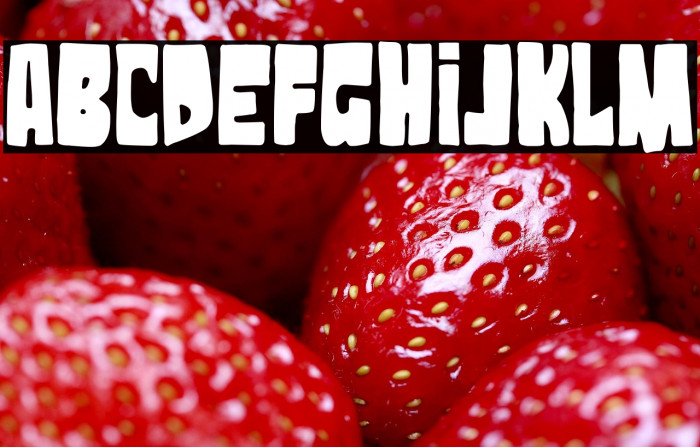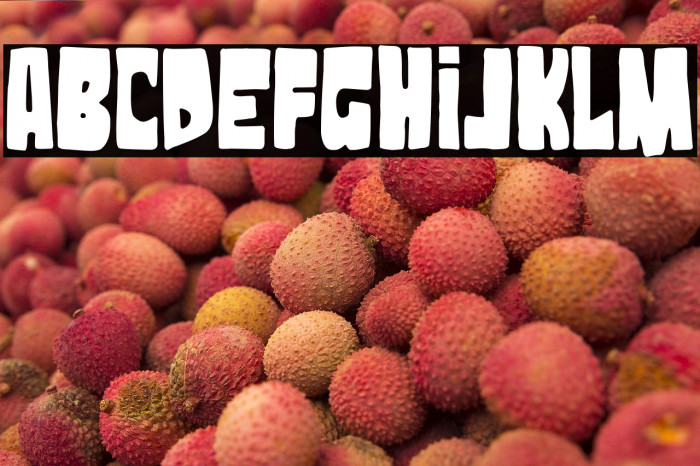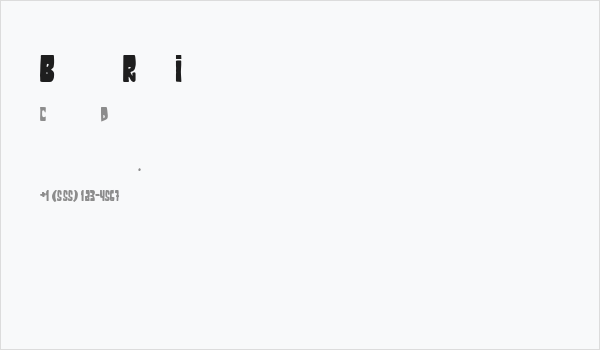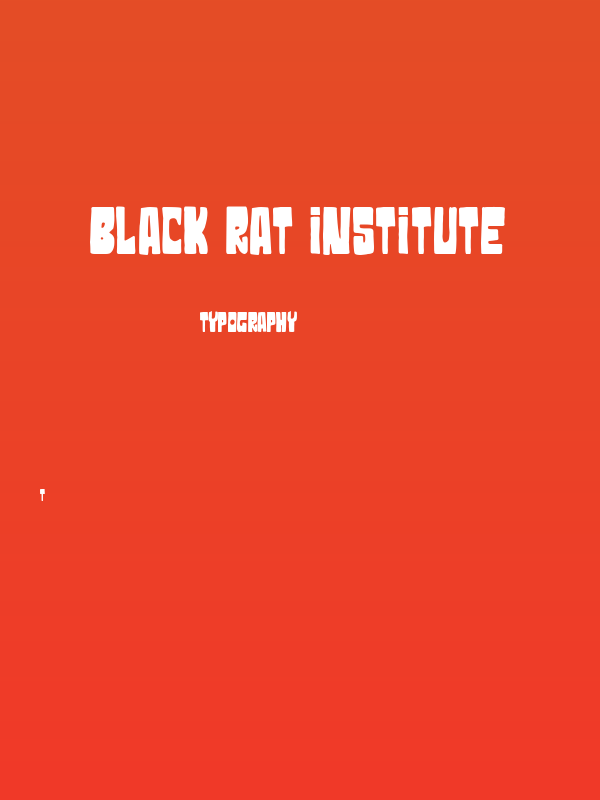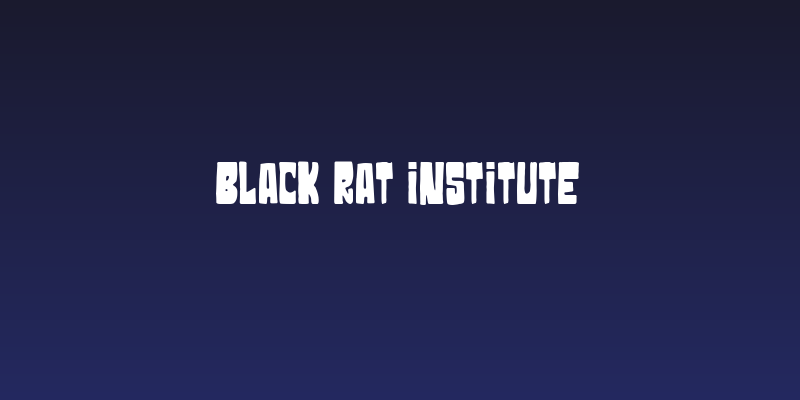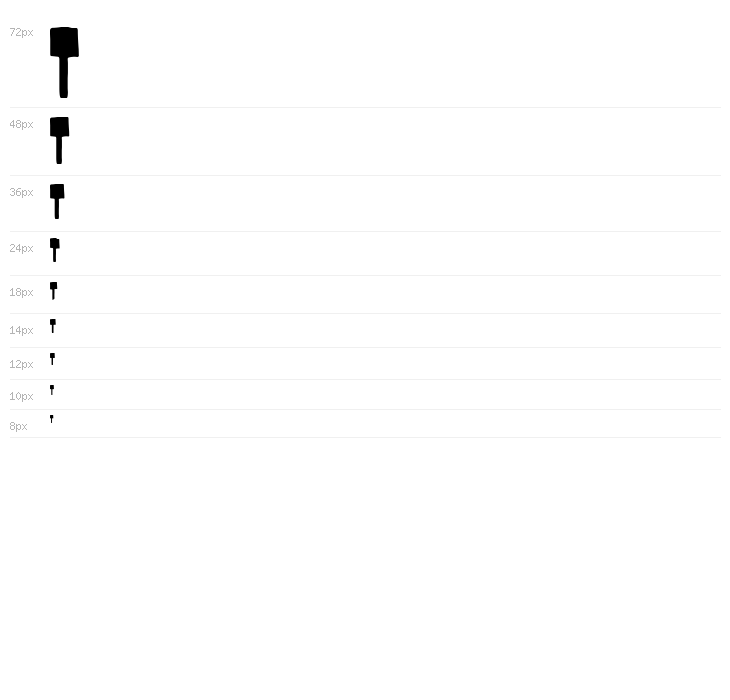
Black Rat Institute Font
Black Rat Institute Description
This font features a bold and playful style with a distinctly chunky and irregular form. The characters are heavily weighted, giving them a strong presence, while the uneven edges and varying thicknesses add a whimsical and hand-drawn feel. The uppercase letters are particularly striking, with exaggerated curves and unique shapes that create a sense of movement and energy. The numbers and special characters maintain this playful aesthetic, making the font suitable for creative and informal applications. Its boldness ensures high visibility, making it ideal for attention-grabbing designs.
| Use Case | Headlines, Posters, Branding |
| Proposed Projects | Ideal for posters, children's books, comic strips, and playful branding. |